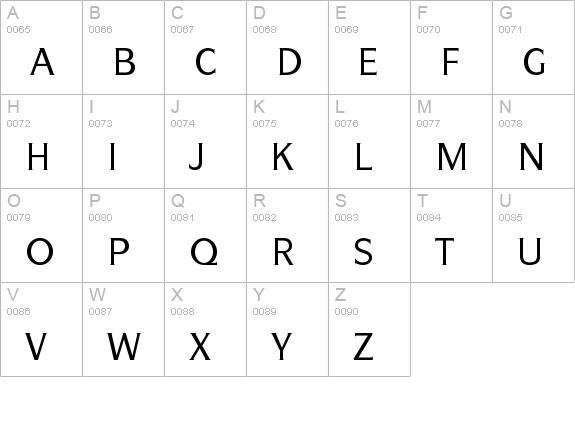
SymbolEF-Medium is a balanced, medium-weight variant in the SymbolEF typeface family \xE2\x80\x94 well suited to sub-headlines, navigation, and balanced editorial work.
SymbolEF-Medium is a versatile and elegant font that exudes sophistication and style. With its clean lines and modern aesthetic, this font is perfect for a wide range of design projects, from branding to editorial design. SymbolEF-Medium is available for free download at FontsMarket.com, making it easily accessible to designers and creators looking to elevate their work with a touch of class. Whether you're working on a website, brochure, or logo, SymbolEF-Medium is sure to make a bold statement and leave a lasting impression. So why wait? Download SymbolEF-Medium today and take your design projects to the next level.